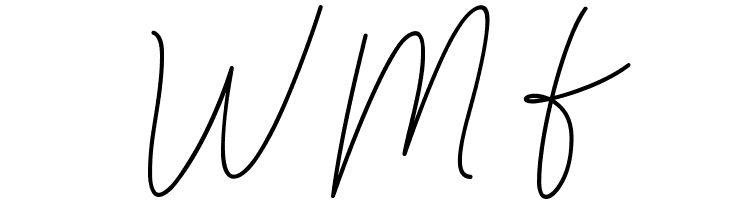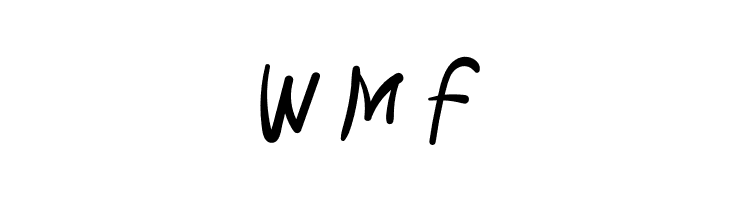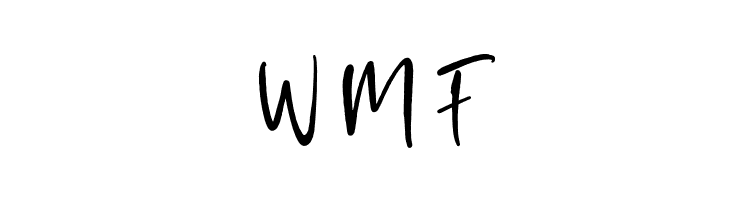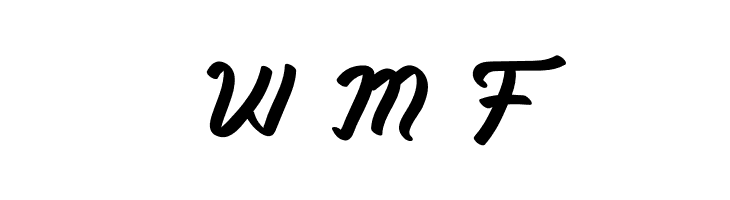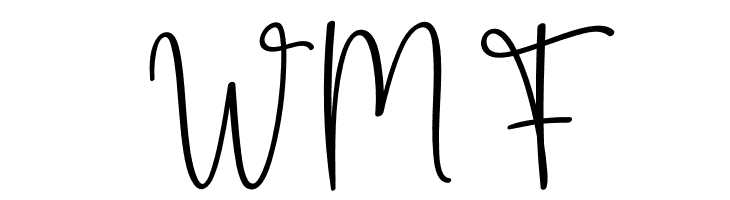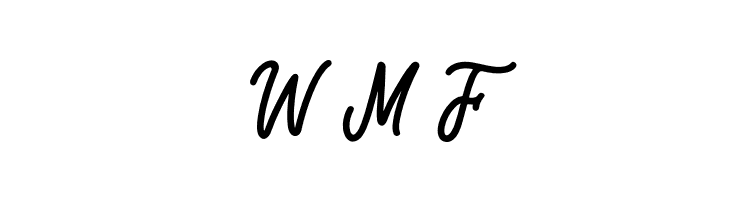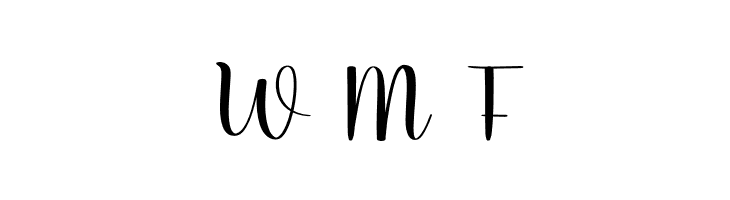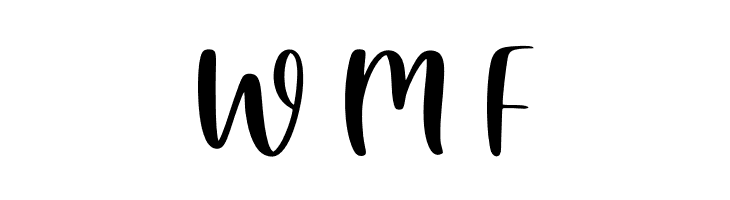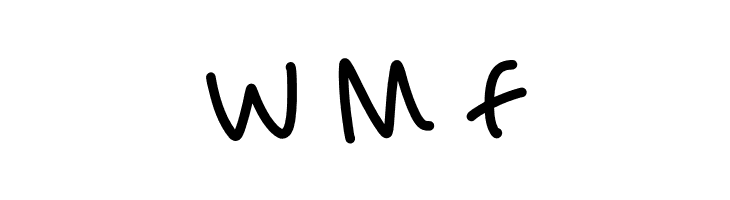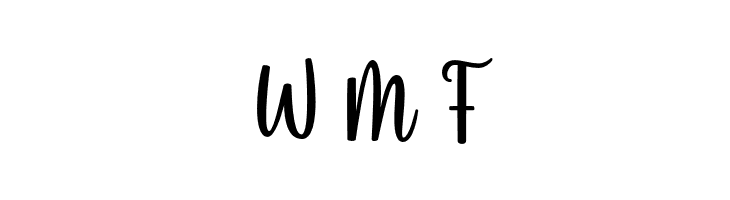
A playful and dynamic handwritten font with fluid strokes.
Elegant, tall handwritten script with a casual, modern feel.
Elegant handwritten script font.
Casual handwritten font with rounded, playful forms.
Elegant cursive script with modern flair.
A playful handwritten font with heart-shaped elements and a whimsical style.
A playful and elegant script font with flowing, connected letterforms.
Playful handwritten script font.
An elegant, flowing script font with a handwritten appearance.
A playful, handwritten-style font with smooth, rounded strokes.
Playful handwritten font with rounded shapes and a heart symbol.
A playful, hand-drawn font with rounded edges and consistent stroke width.
A playful, bold, and hand-drawn font with rounded characters.
A playful, hand-drawn font with heart-shaped accents and a whimsical style.
Casual handwritten script with rounded, connected strokes.
A lively and expressive handwritten font with dynamic curves and fluid strokes.
Playful handwritten font with rounded edges.
A romantic, cursive script font with elegant, flowing lines and decorative flourishes.
A playful, whimsical handwritten font with flowing, interconnected letterforms.
Casual handwritten font with a playful style.
Elegant and flowing script font.
Playful and elegant handwritten script font.
A bold, expressive script font with flowing, cursive letterforms.
A playful, cursive font with elegant, flowing strokes and a handwritten feel.
Playful handwritten font with a casual style.
A flowing, cursive script font with elegant, connected characters.
Playful handwritten script font.